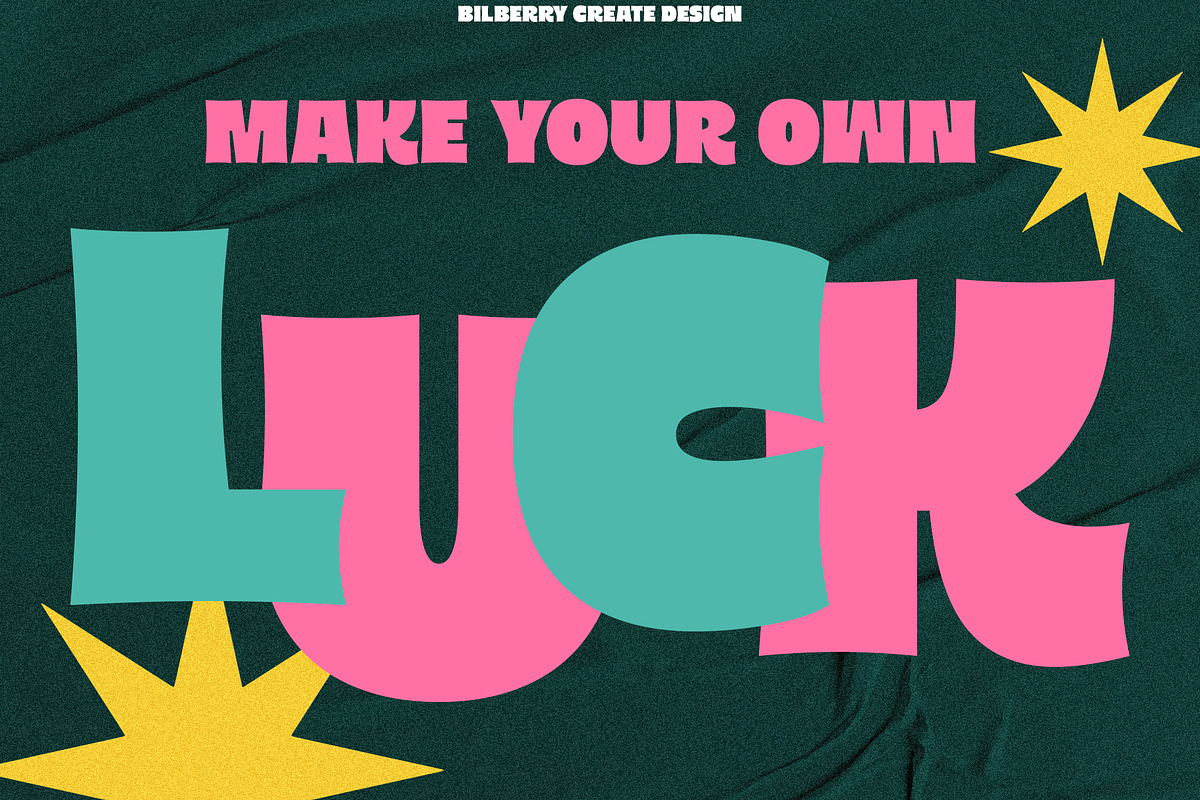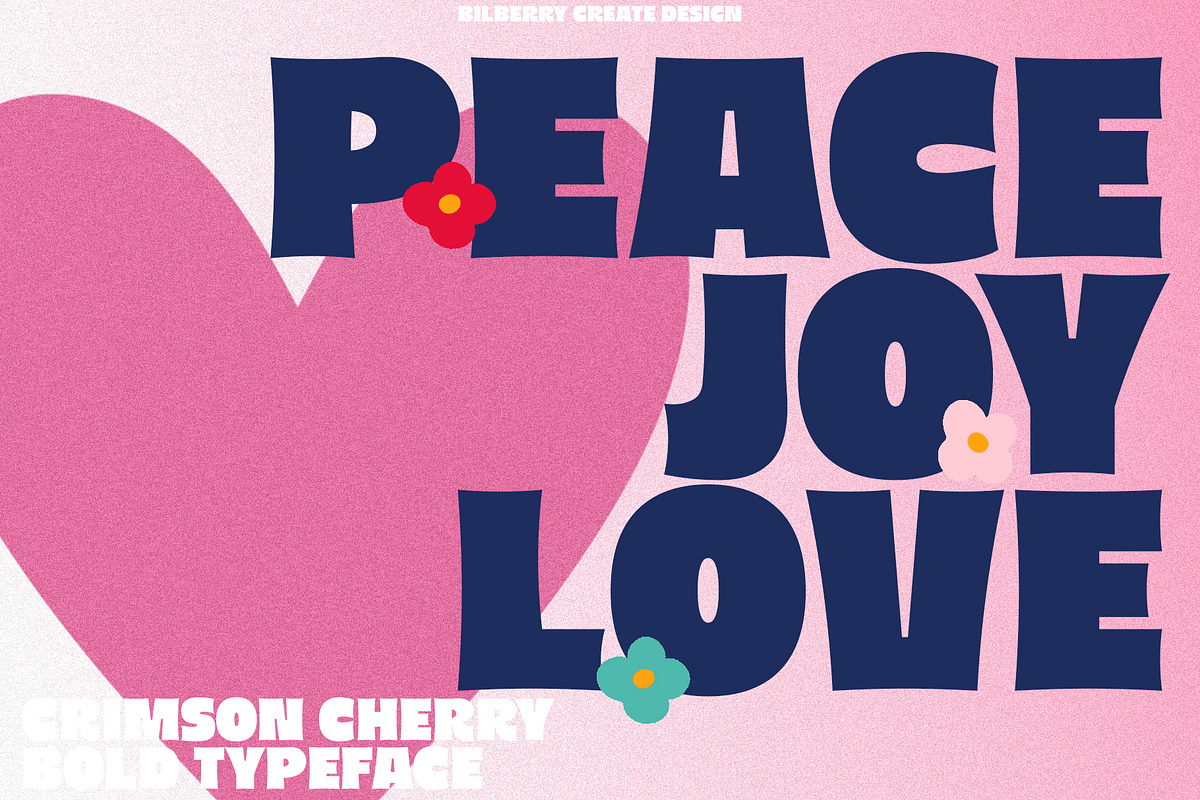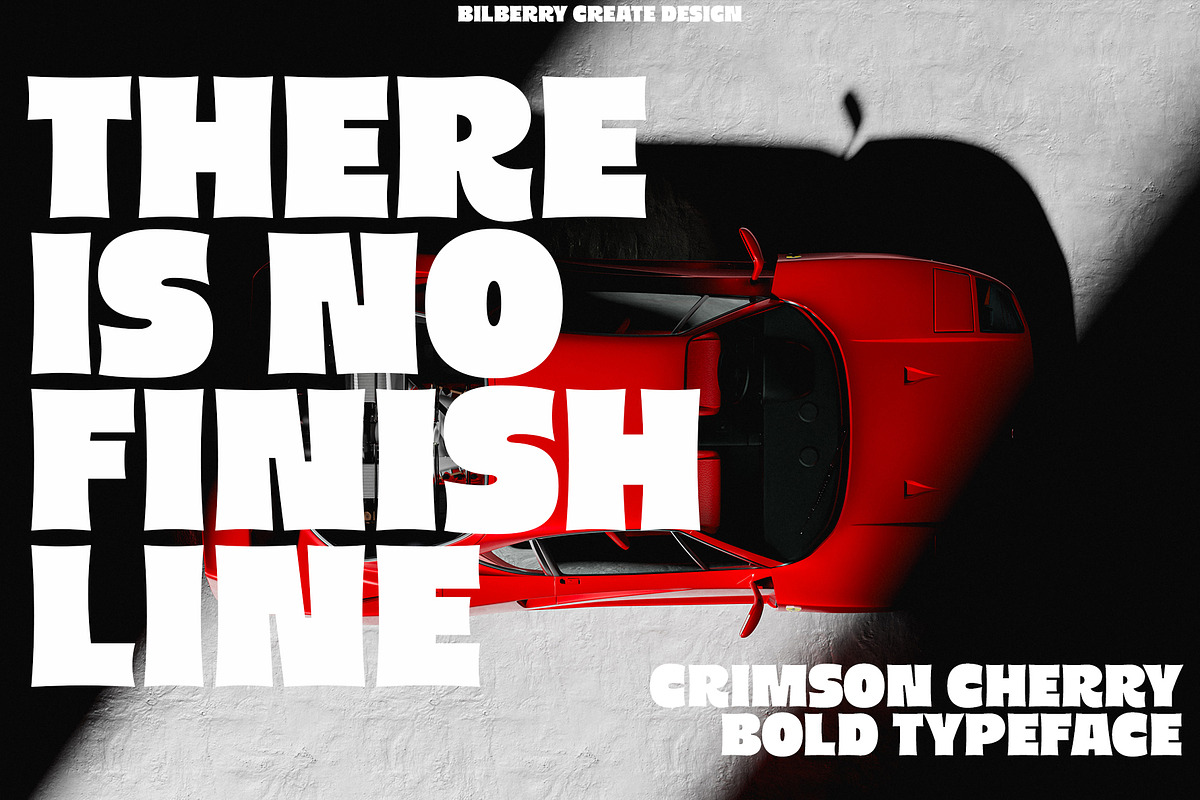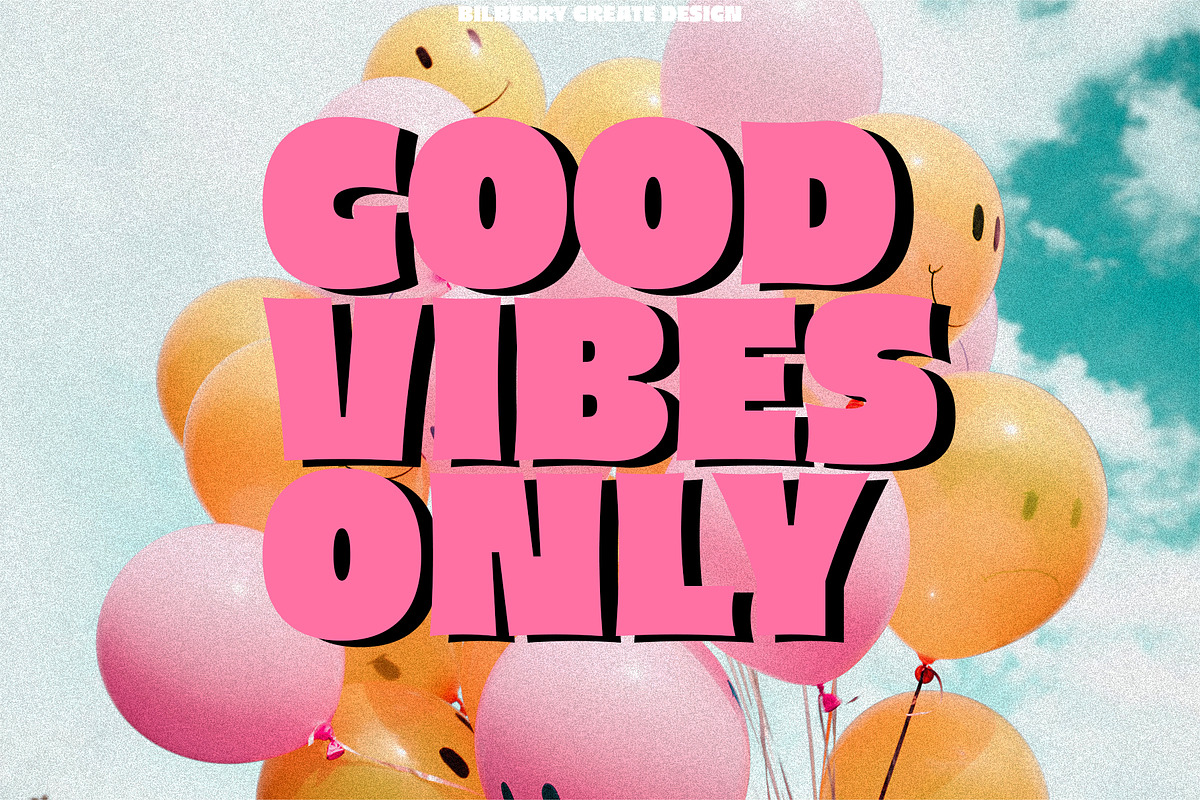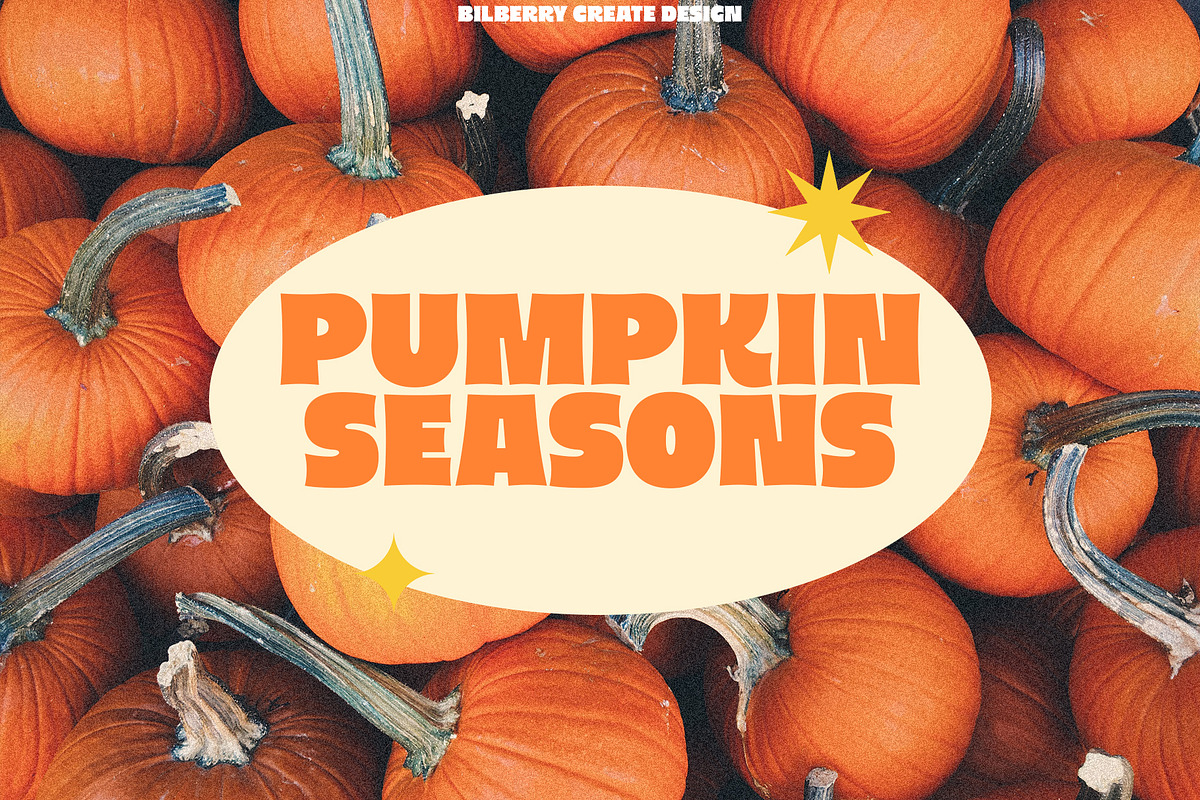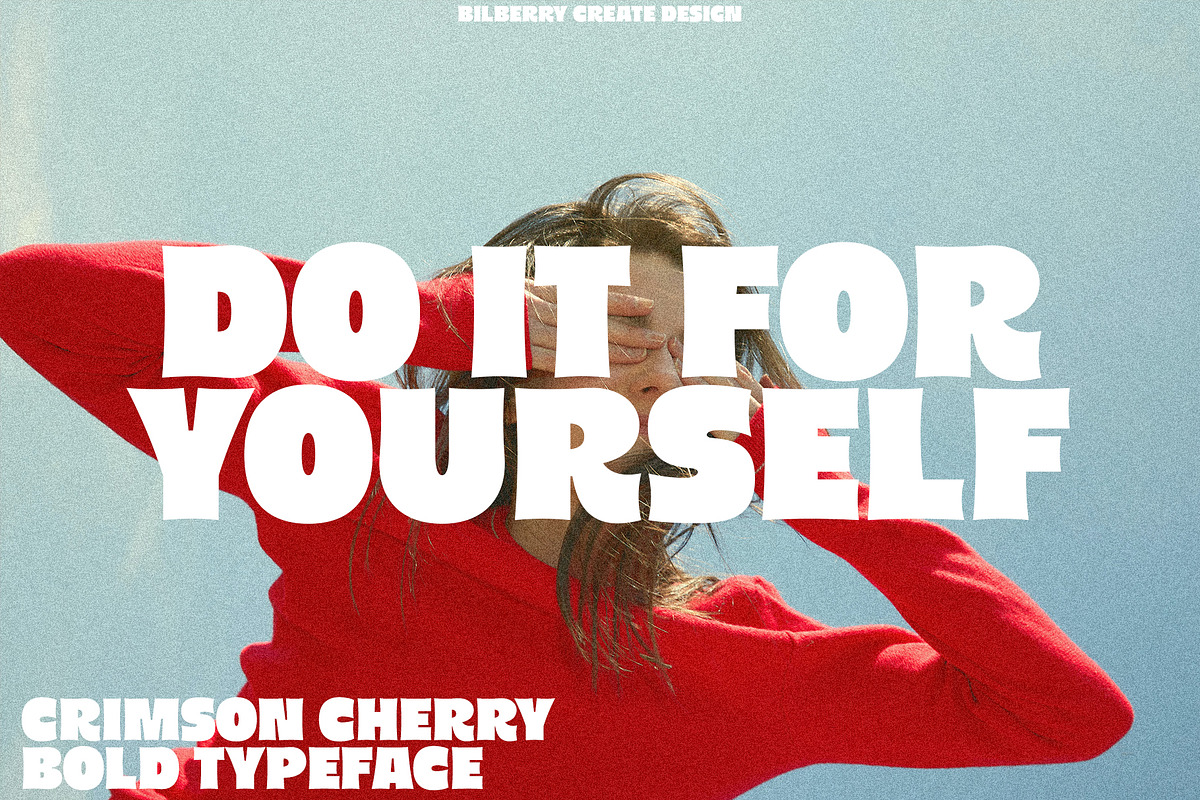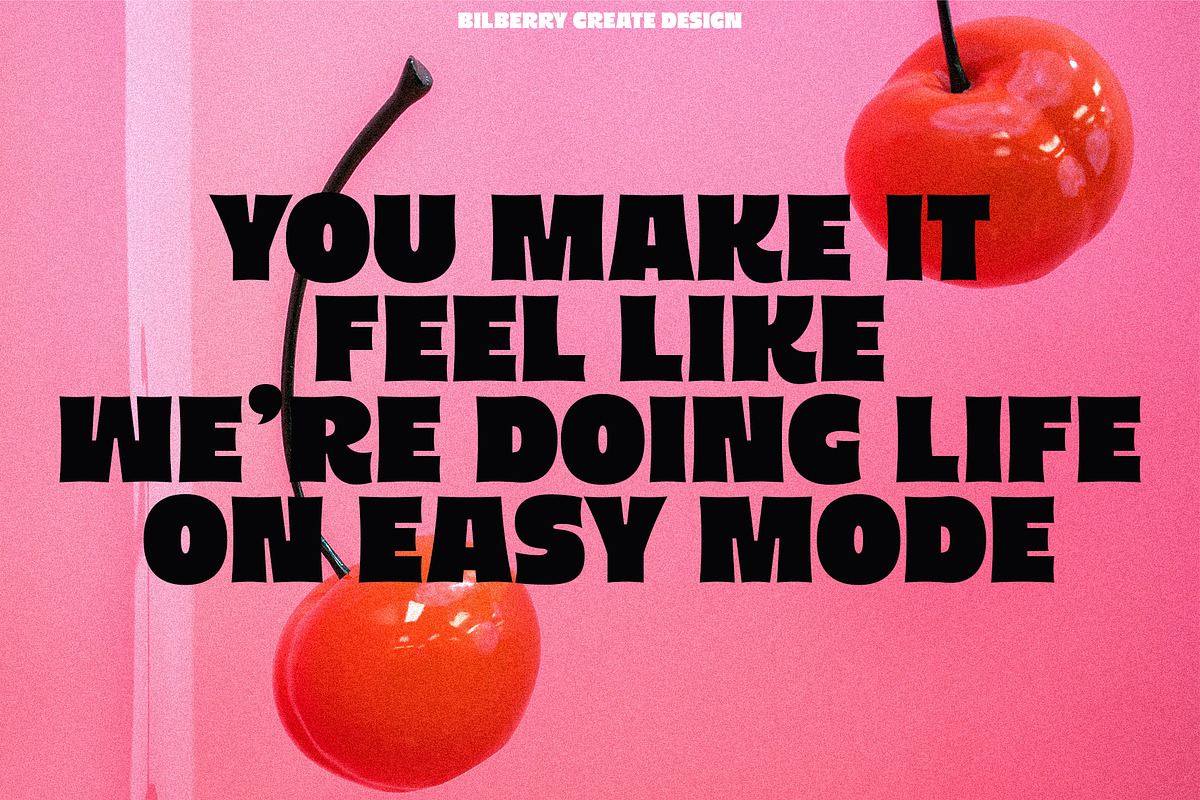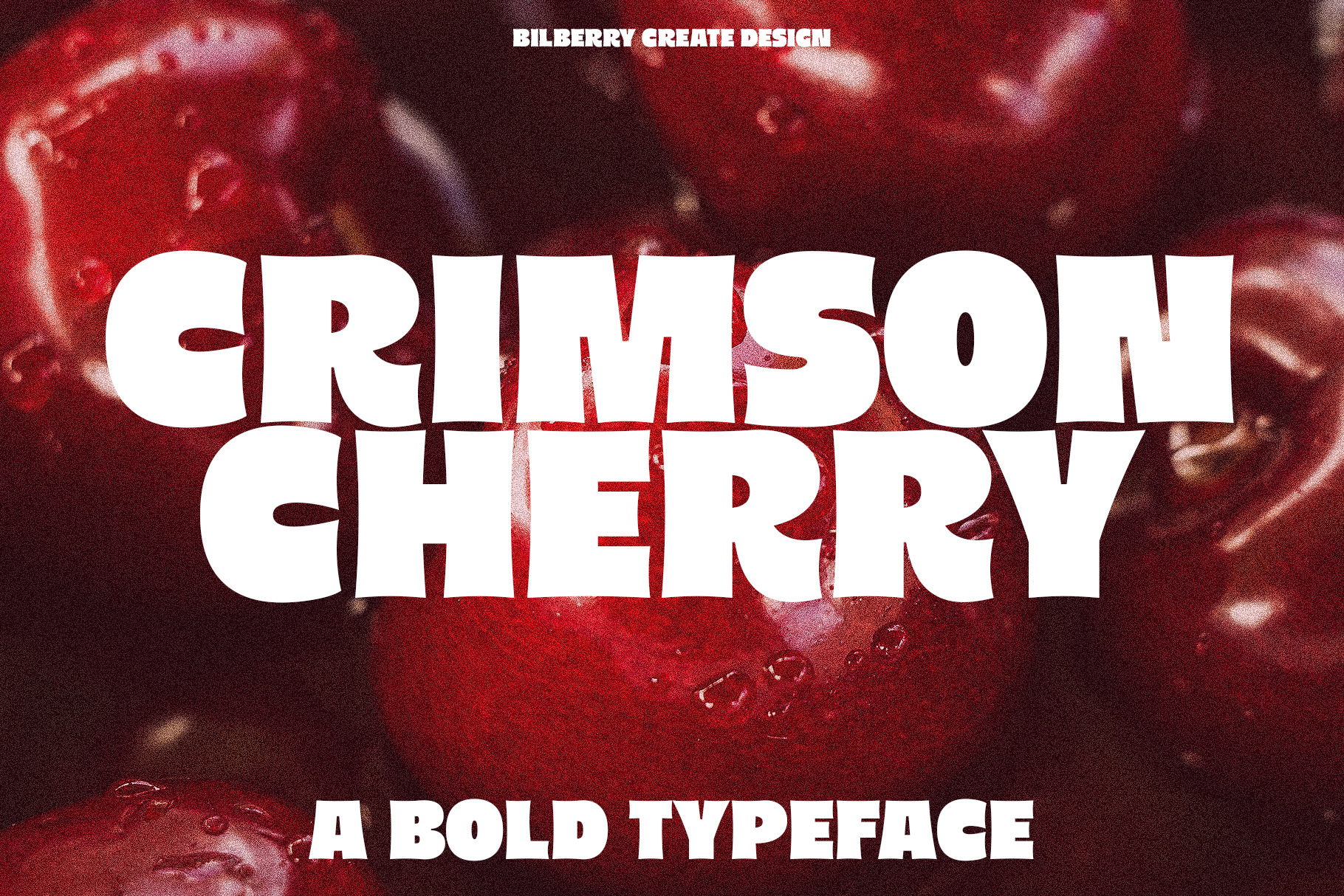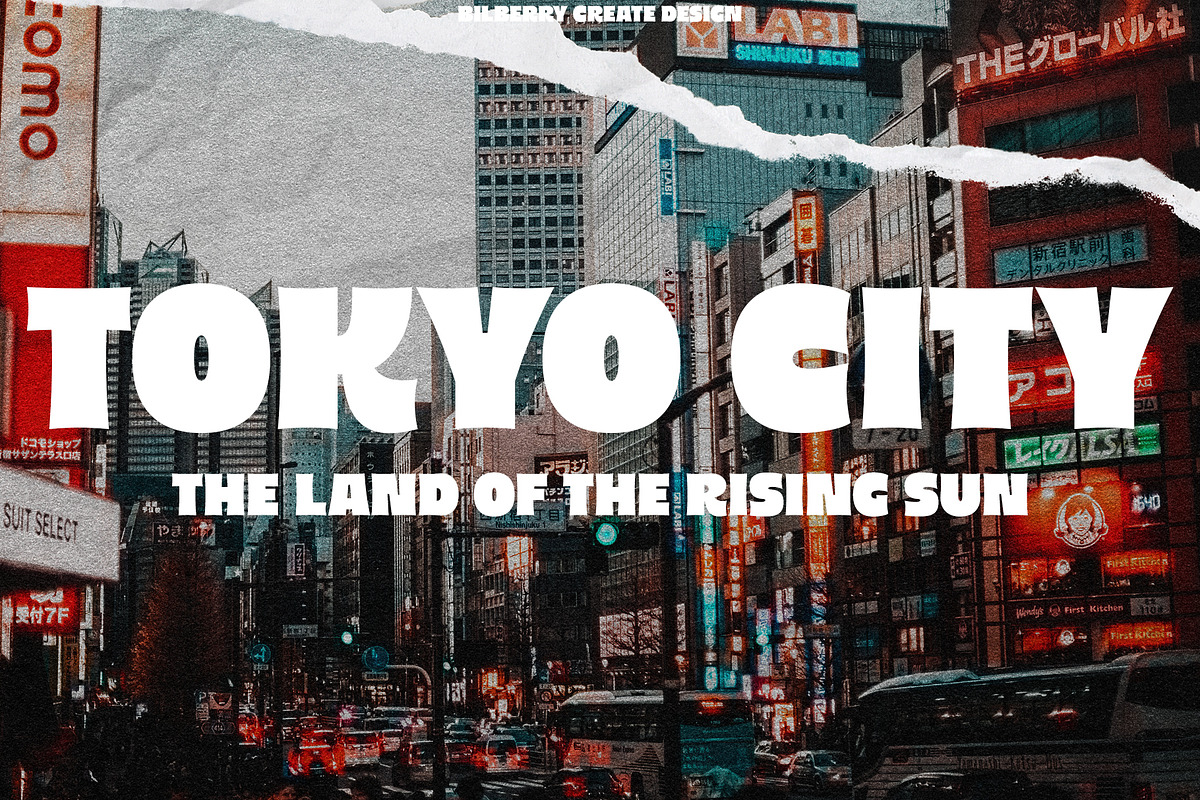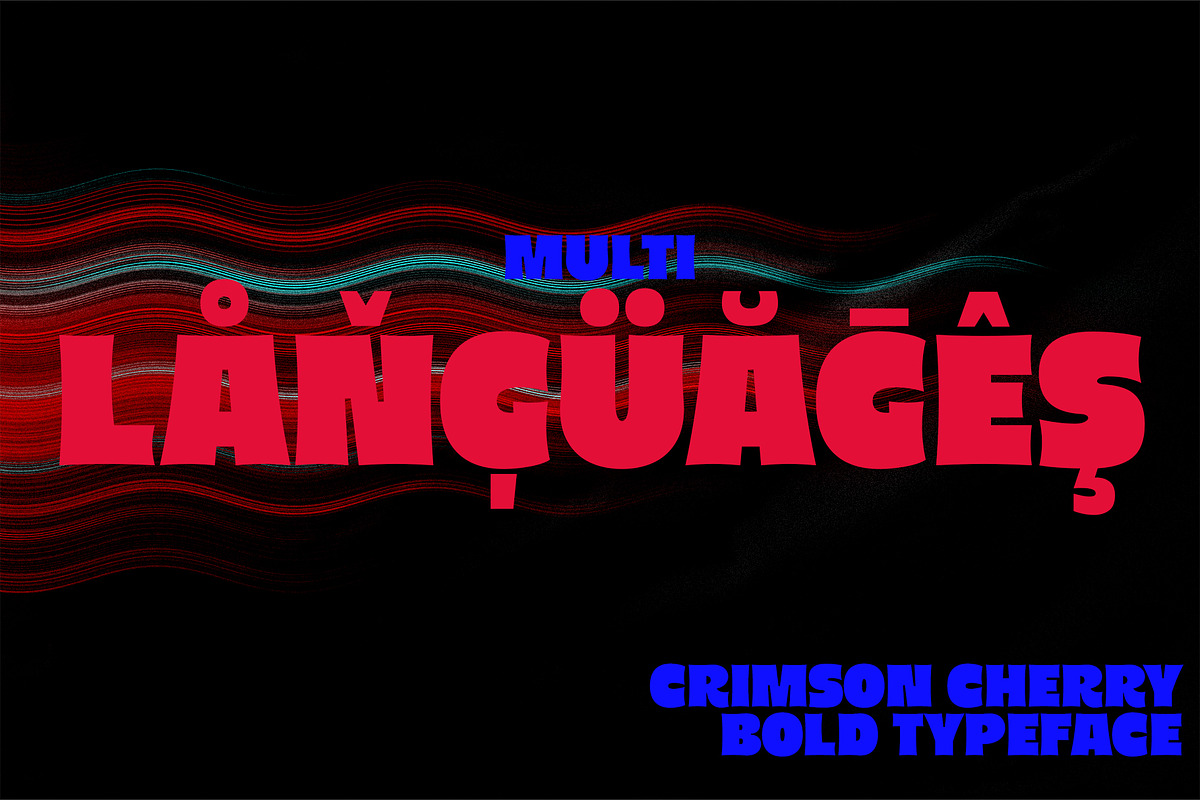
Crimson Cherry bold typeface
Crimson Cherry is a bold display type. Simple in a good way and efficient with tight kernings making it a nice choice if you want a retro look in your design. Every single letters have been carefully crafted to make your text looks beautiful. With lettering script style this font will perfect for many different project ex: quotes, blog header, poster, wedding, branding, logo, fashion, apparel, letter, invitation, stationery, etc. — Zip included: